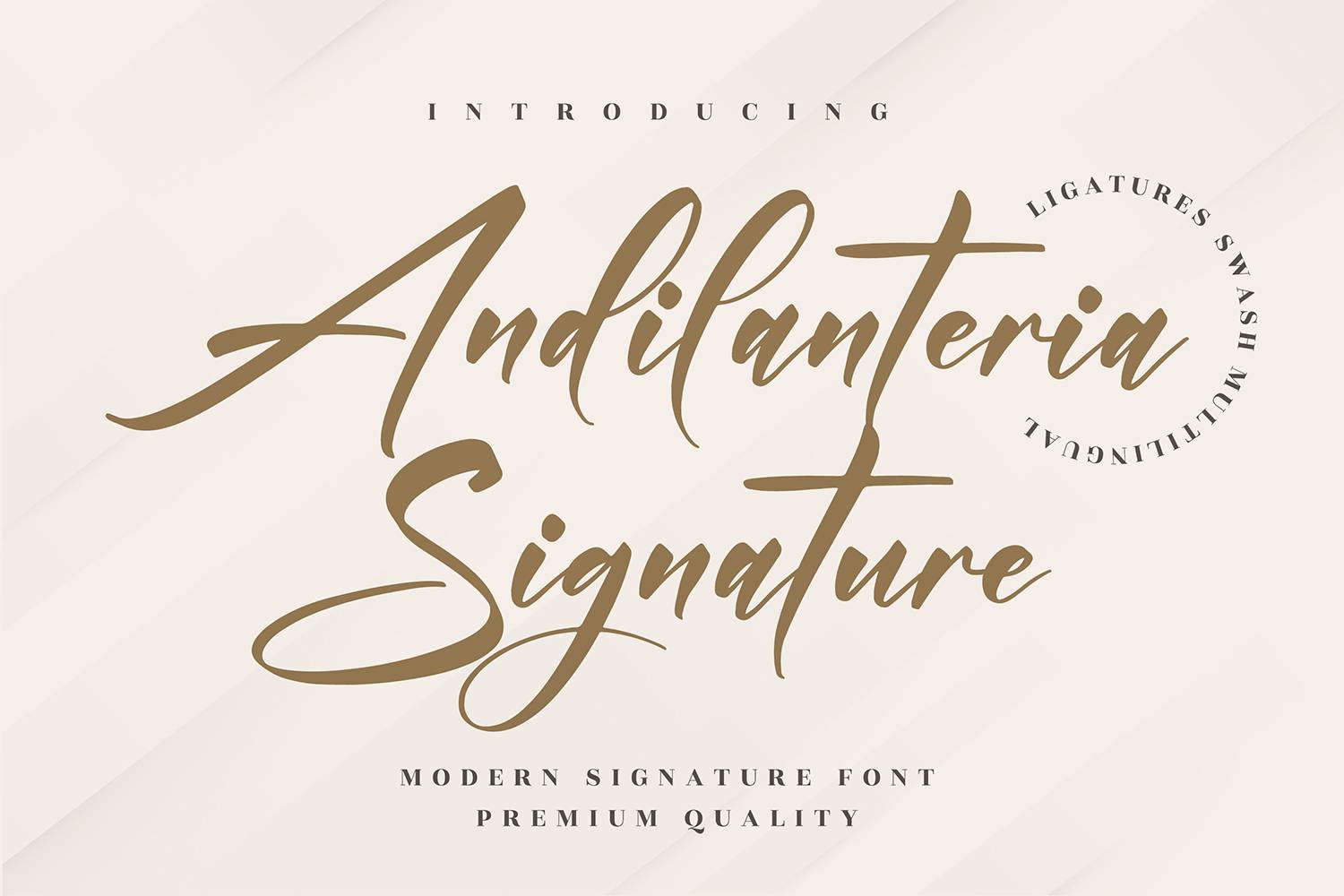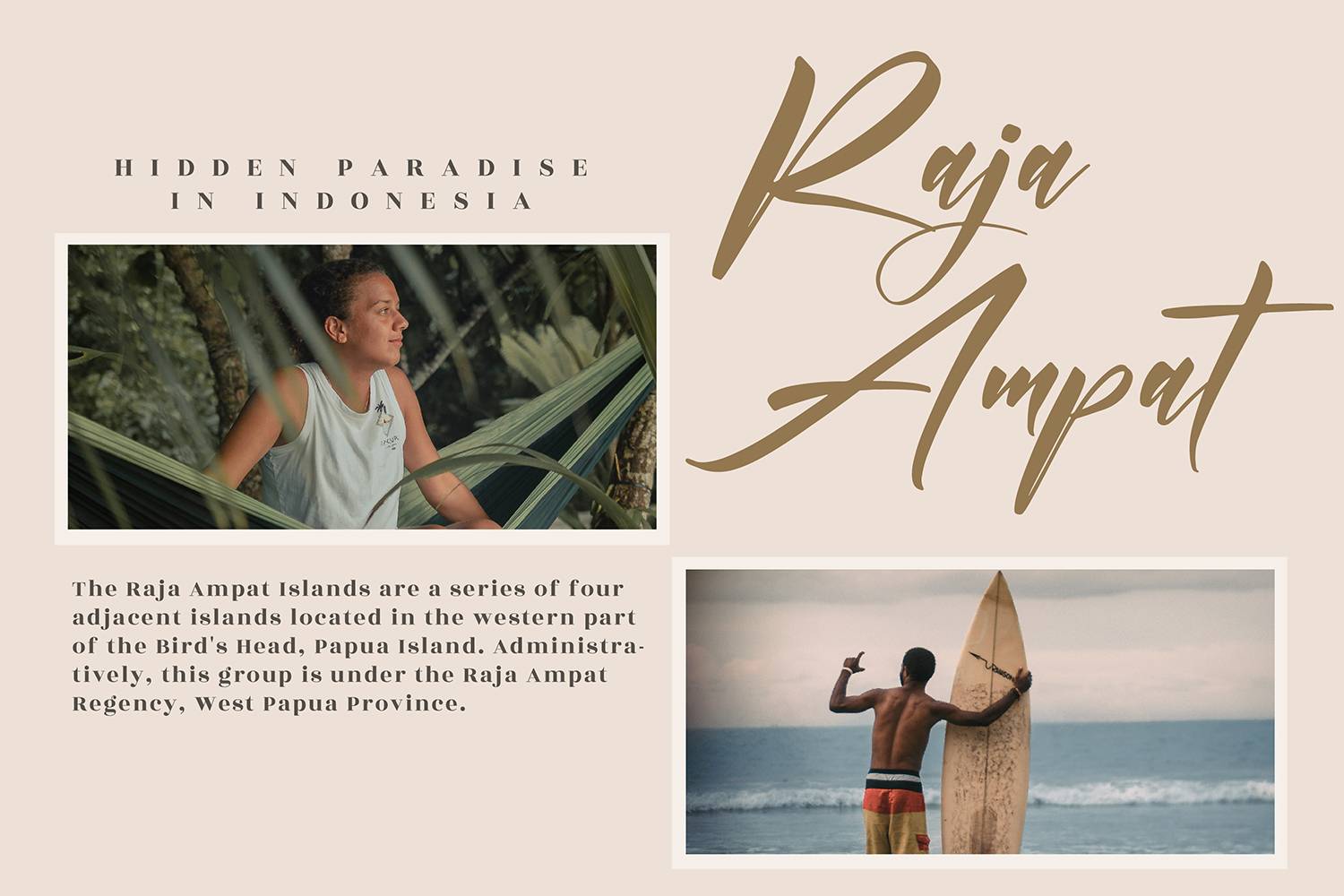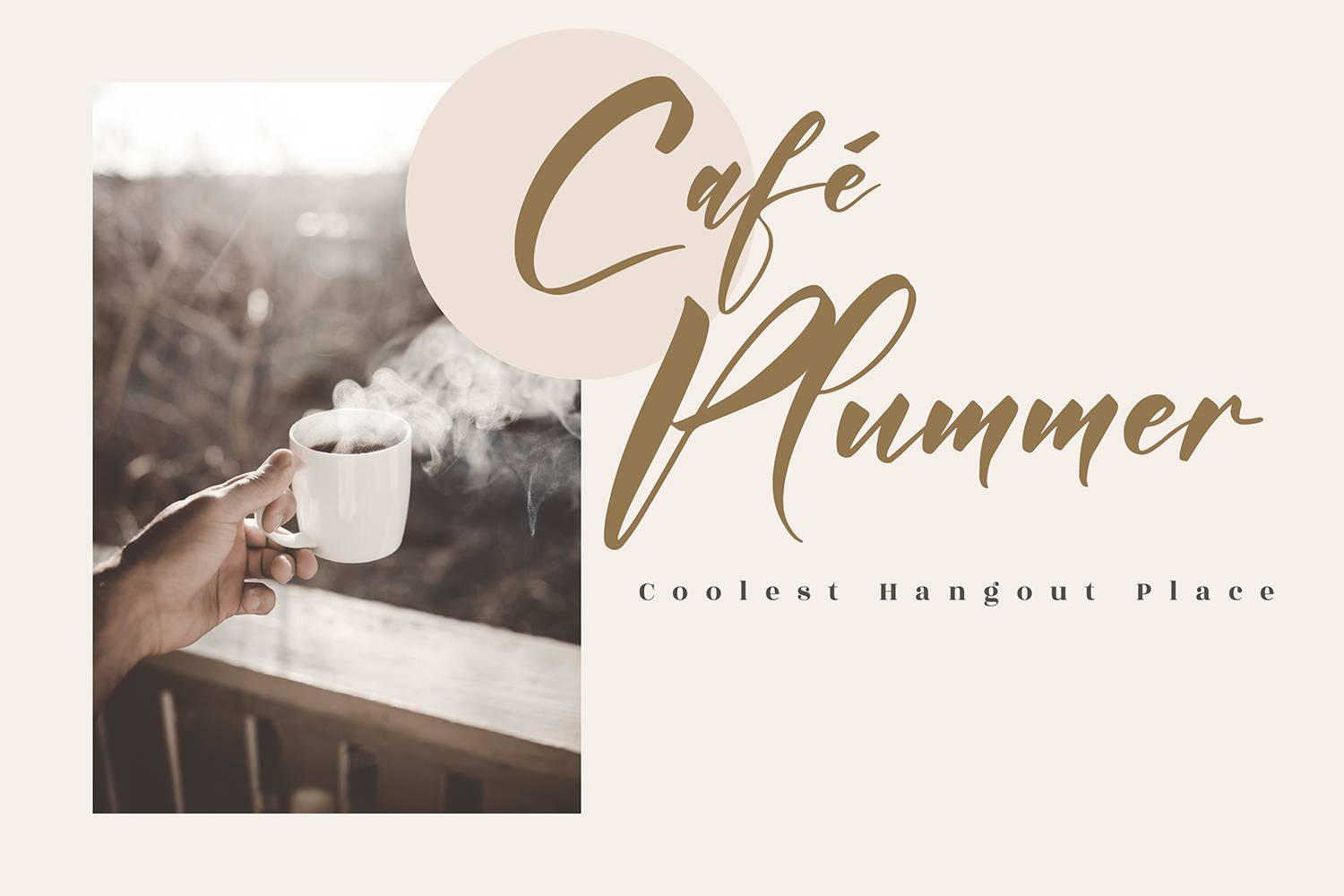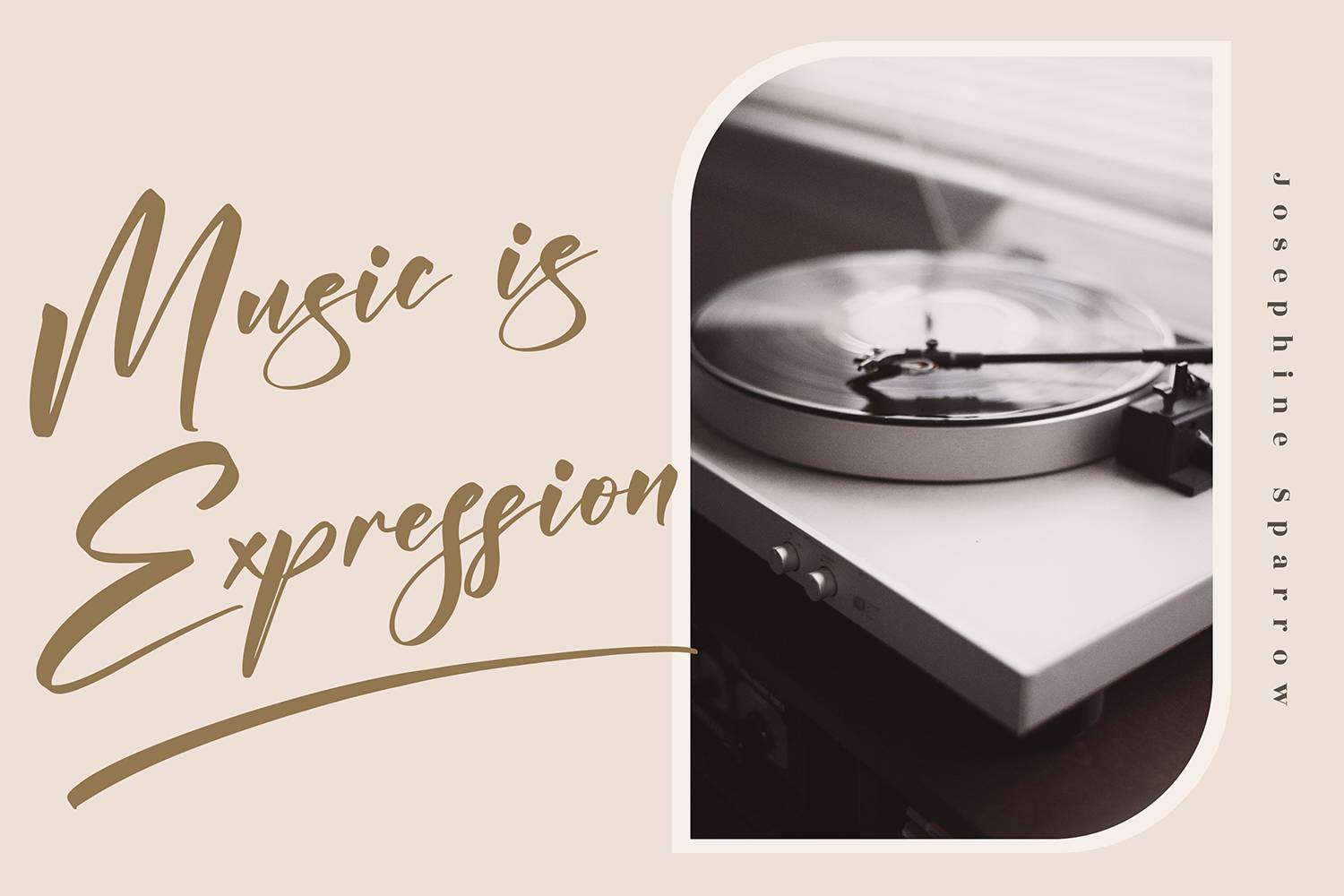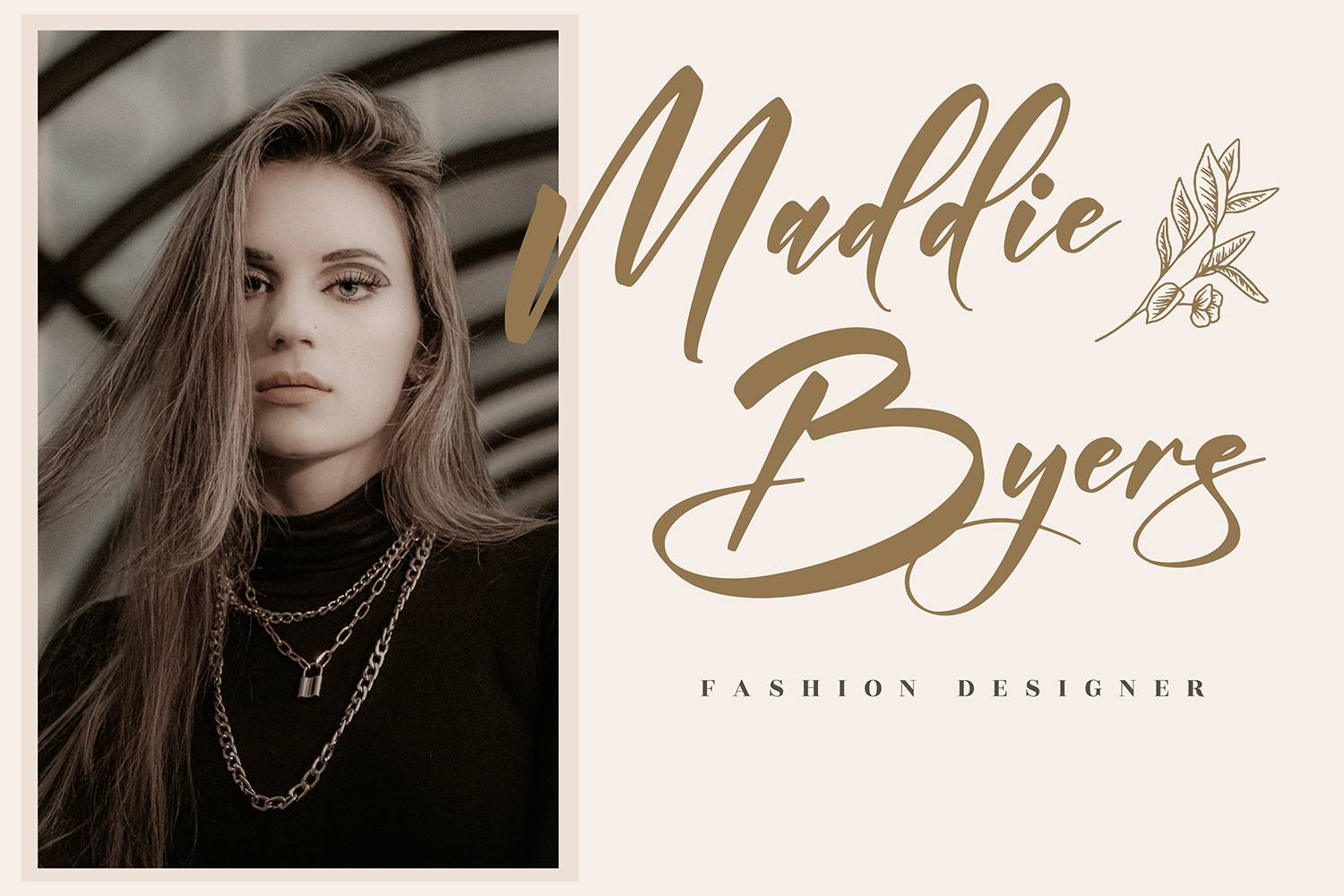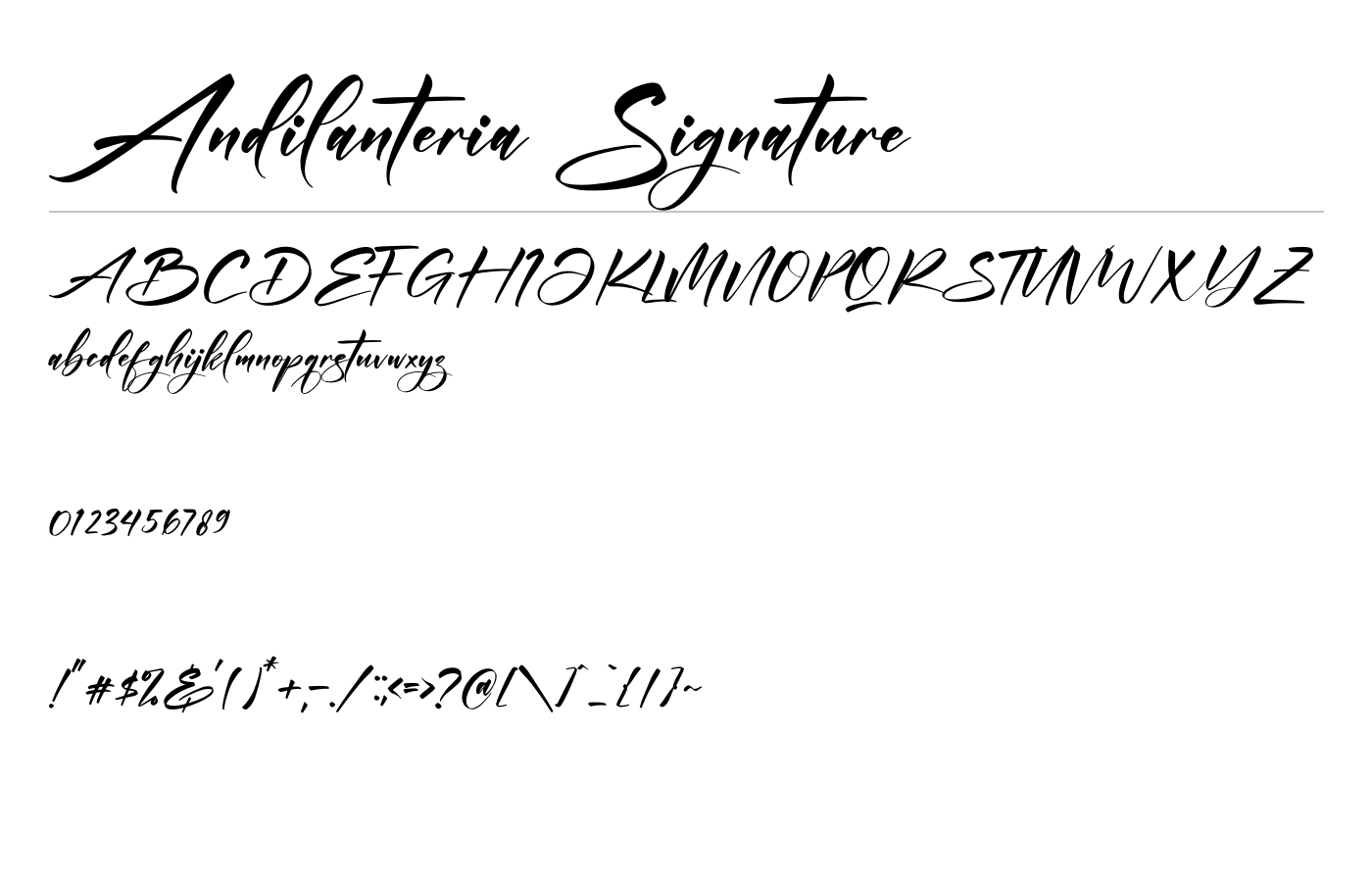
Andilanteria Signature is an elegant script font with a modern, handwritten feel, characterized by fluid, expressive strokes and a natural flow. Its varied line thickness and stylish curves give it a personal, sophisticated look perfect for branding, invitations, and creative projects that seek a touch of luxury and authenticity. This font works especially well in logos, headlines, and packaging where a graceful, artistic impression is desired.
Andilanteria Signature Font
About Andilanteria Signature Font